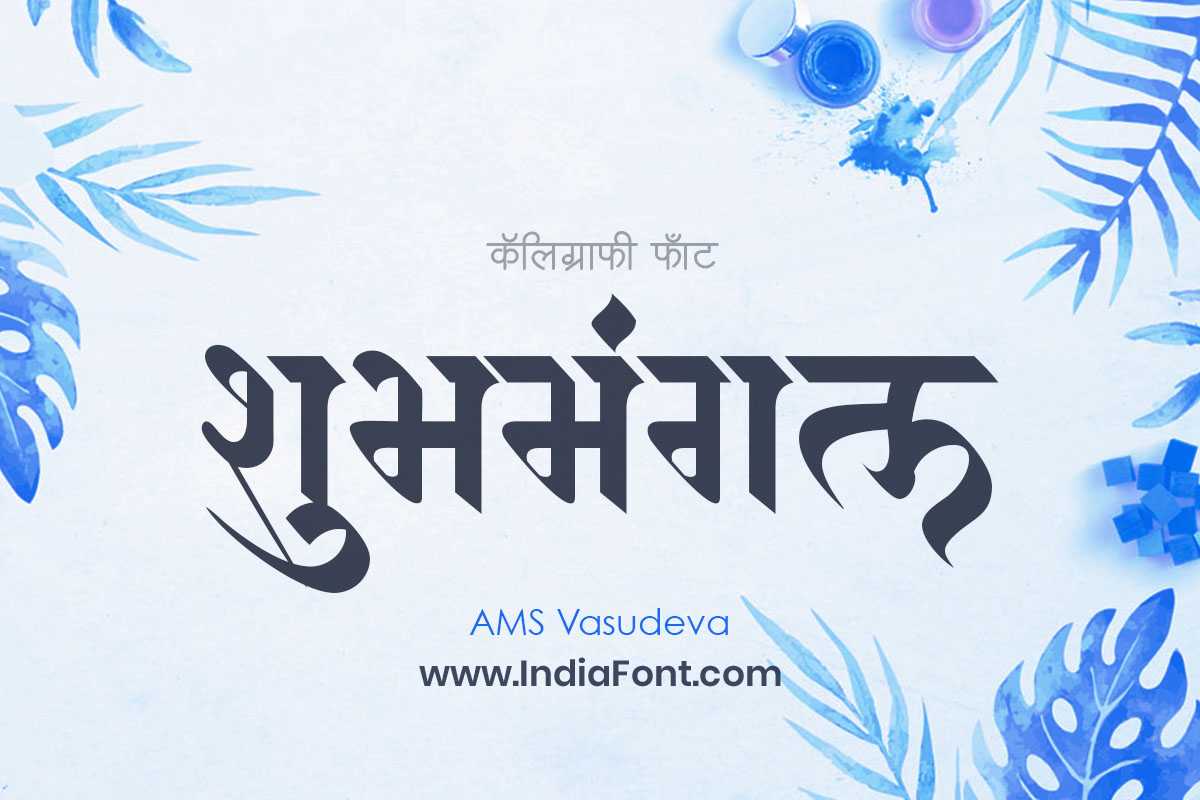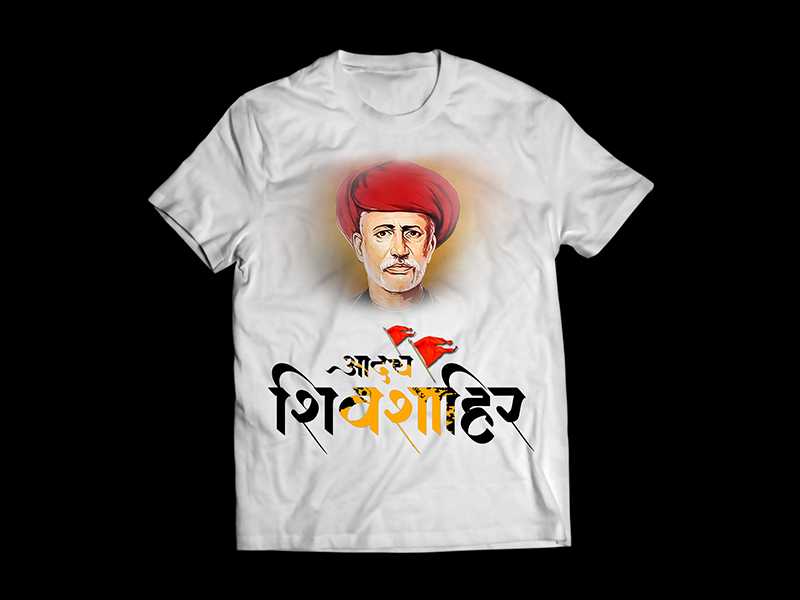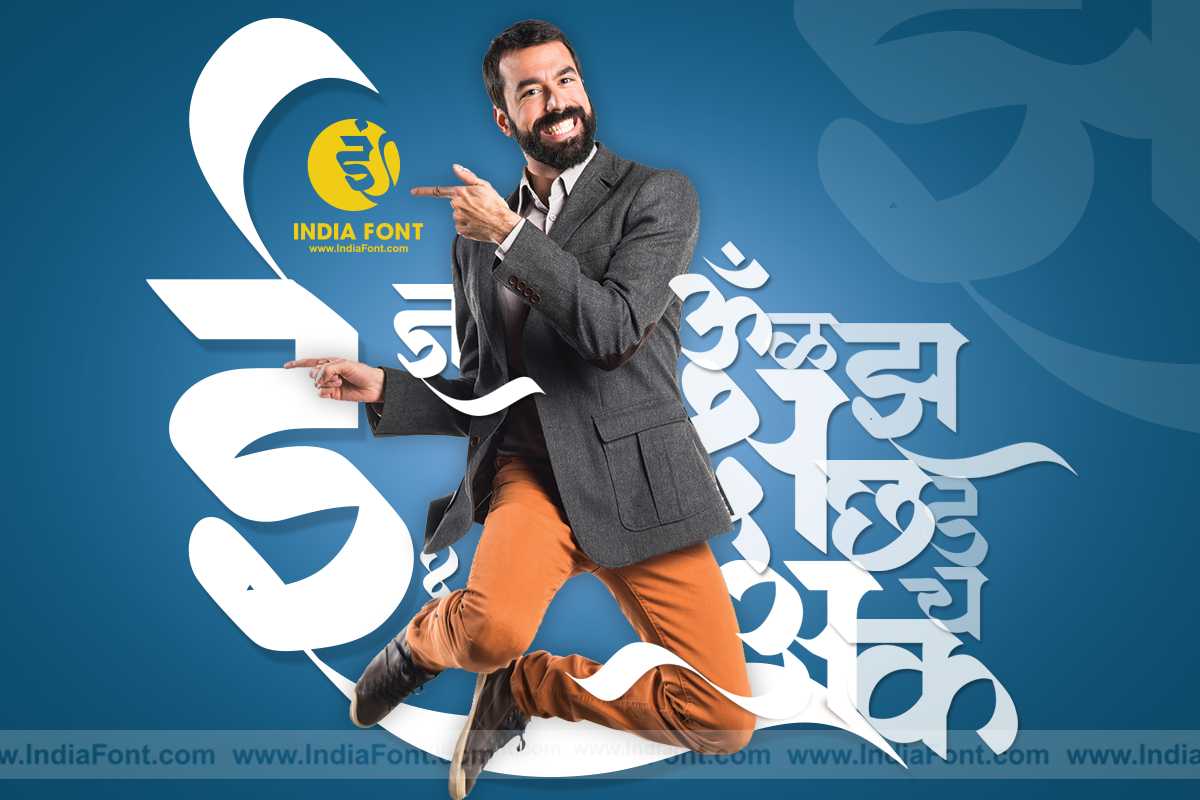
AMS Vasudeva
Immerse your designs in the timeless beauty of AMS Vasudeva, a calligraphy font that exudes elegance and artistry. This font is perfect for designers seeking stylish Hindi fonts, calligraphy fonts that showcase a unique aesthetic, or fonts that offer a unique font style download.
AMS Vasudeva Design Inspiration
AMS Vasudeva used in wedding invitation design
AMS Vasudeva in logo design application
AMS Vasudeva in cultural and religious design
About AMS Vasudeva Font
Immerse your designs in the timeless beauty of AMS Vasudeva, a calligraphy font that exudes elegance and artistry. This font is perfect for designers seeking stylish Hindi fonts, calligraphy fonts that showcase a unique aesthetic, or fonts that offer a unique font style download. This calligraphy font combines elegance with functionality, making it perfect for various design applications.
AMS Vasudeva is a professionally crafted calligraphy typeface that brings clarity and style to your projects. Designed with attention to detail, it supports hindi and marathi characters flawlessly.
Whether you're working on wedding-materials, invitations, headers-titles, or other creative projects, AMS Vasudeva delivers consistent performance across both digital and print media. This carefully designed typeface ensures readability and visual appeal in all your design work.
Why Choose AMS Vasudeva?
AMS Vasudeva excels in various design scenarios. Here are the most suitable applications:
About AMS Vasudeva Typography Style
AMS Vasudeva is a professionally crafted calligraphy font that exemplifies modern Hindi typography design. This free font is perfect for designers seeking professional branding and logo design projects.
Available in 1 weight and supporting hindi, marathi scripts, AMS Vasudeva offers exceptional versatility for both digital and print media. Whether you're working on wedding-materials, invitations, headers-titles, this carefully designed typeface ensures consistent quality and professional results across all your typography projects.